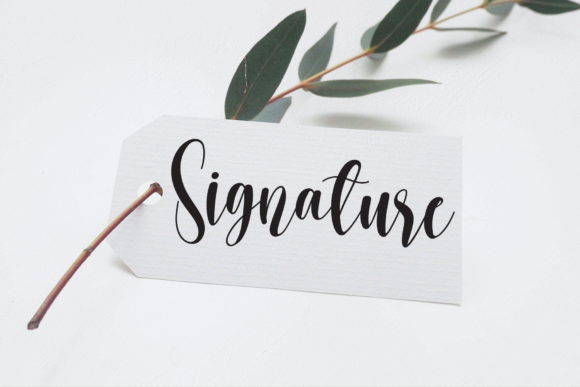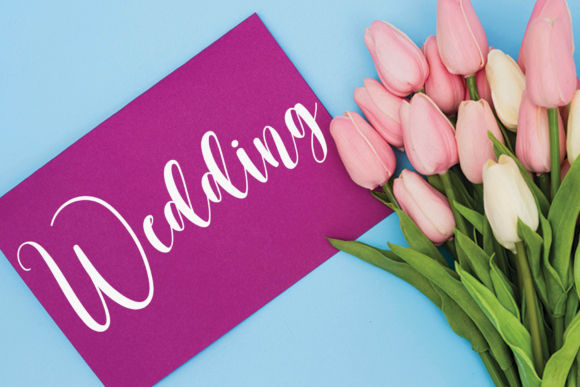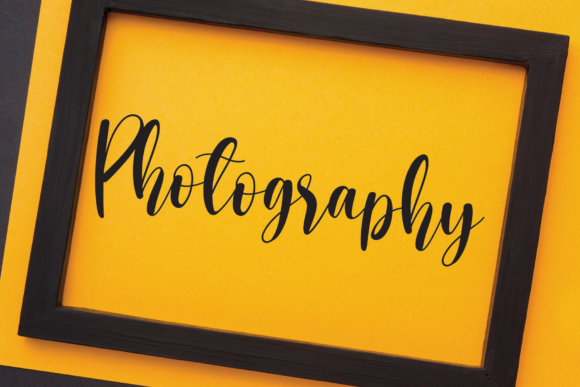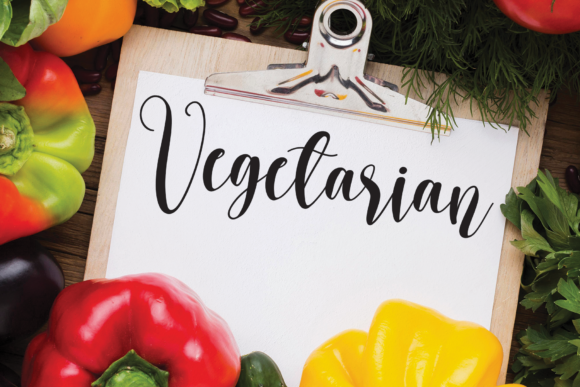
The Perfect Addition to Your Design Toolbox: Farmhouse Font
As a designer, there’s nothing quite like the thrill of brainstorming a new project and imagining the perfect font to bring it to life. Perhaps you’re working on a wedding invitation, a cookbook, or a brand identity, and you know exactly the look and feel you want to convey. But sometimes, no matter how hard you try, the right font just seems elusive. That’s where the beautiful Farmhouse Font comes in – a sweet and elegant calligraphy typeface that’s sure to add a touch of luxury to any design project.
With its flowing characters that dance along the baseline, Farmhouse Font is the perfect choice for designers looking to create a sense of sophistication and charm. Whether you’re working on a romantic project or a rustic one, this versatile font is sure to bring a unique touch to your design. And the best part? It’s incredibly easy to use, making it a valuable addition to any designer’s toolbox.
Farmhouse Font Key Features
- Font Family: Farmhouse Font is a unique, hand-drawn script font designed to evoke a rustic, countryside feel.
- Unique Characteristics: The font features distinctive, hand-drawn flourishes and imperfections that give it a charming, authentic feel.
Review of Farmhouse Font
Overall, I think Farmhouse Font is a charming and rustic choice for a variety of design projects. Here are some of its strengths:
- ✨ Rustic Charm: This font has a distinct, homespun feel that’s perfect for designs that need a touch of country charm.
- ✨ Whimsical Flair: Farmhouse Font is full of personality and has a unique, hand-drawn feel that adds character to any design.
- ✨ High-Quality Glyphs: The font’s glyphs are well-designed and well-crafted, making it a joy to work with.
- ⚠️ Limited Legibility: The font’s rustic feel can sometimes make it difficult to read, especially at smaller sizes.
- ⚠️ Lack of Universality: Farmhouse Font is best suited for designs that have a specific rustic or country theme – it may not be the best choice for more modern or sleek designs.
Overall, I think Farmhouse Font is a great choice for designers who want to add a touch of rustic charm to their projects. While it may have some limitations, its unique personality and high-quality glyphs make it a joy to work with.
Tips for Getting the Most Out of Farmhouse Font
Use Farmhouse Font for rustic or vintage-themed designs to give them a warm and cozy feel. You can also use it for headings or titles to add a touch of elegance to your design. Experiment with different font sizes and colors to create a unique look that suits your brand.
Farmhouse Font is commonly used for:
- Home decor and furniture labels
- Country-themed designs and decor
Alternatives to Farmhouse Font
Copperplate is a elegant and refined script font, often used for invitations, wedding stationery, and other formal documents. It is characterized by its flowing connections and high-end feel. Copperplate is a more sophisticated alternative to Farmhouse Font, which is often associated with a more rustic and country feel.
Playfair Display is an elegant and luxurious serif font, often used for high-end branding, luxury packaging, and fine art. It features intricate details and a sophisticated feel, making it a more refined alternative to Farmhouse Font. Playfair Display is ideal for designs that require a touch of sophistication and elegance.